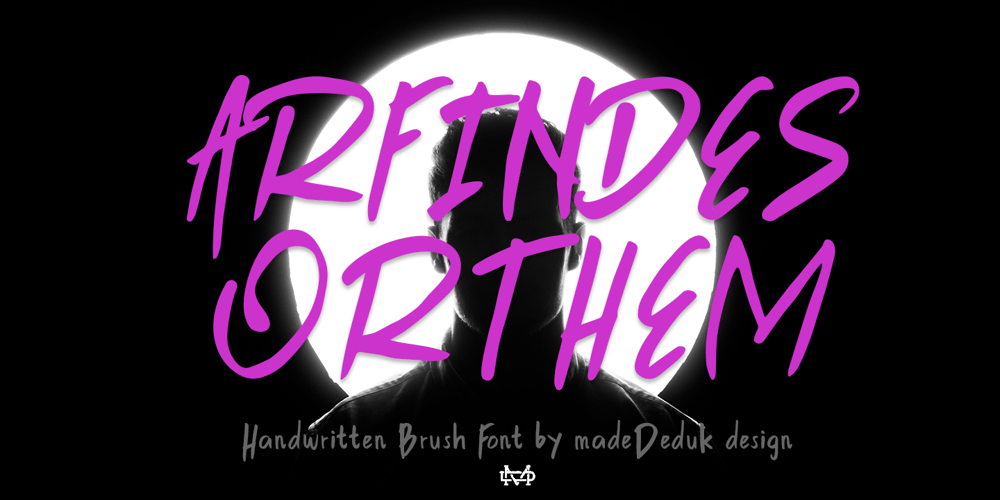
Arfindes Orthem
Arfindes Orthem font
Arfindes Orthem Font Family was designed by madededuk and published by madeDeduk. Arfindes Orthem contains 2 styles and family package options. Introducing Arfindes Orthem is a brush handwritten font and will be perfect for all your project design book, title branding, product packaging, invitation, quotes, label, poster, logo etc.Feature Uppercase & Lowercase Number & Symbol International Glyphs Multilingual support Alternative Ligature Feel free to drop us a message any time and follow my shop for upcoming updatesHope you enjoy it.